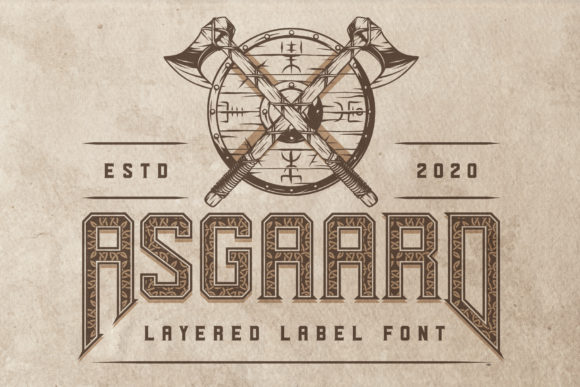
Asgaard Font: Unleash the Power of Norse Mythology in Your Designs
In the realm of typography, few fonts have managed to capture the essence of mythology and legend as effectively as the Asgaard Font. Inspired by the majestic world of Norse mythology, Asgaard is an eye-catching display font that brings a touch of divine power to any design project. Whether you’re a graphic designer, a digital artist, or simply someone looking to add a bit of magic to your visual creations, Asgaard is the perfect choice.
What is Asgaard Font?
Asgaard Font is a meticulously crafted typeface that draws its inspiration from the realm of Asgard, the mythical kingdom of the gods in Norse mythology. Known for its strong, bold, and majestic aesthetic, Asgaard Font embodies the fearless spirit of the Viking gods and goddesses. With its unique blend of classic and modern elements, this font is designed to make your ideas stand out and create spectacular designs that capture the imagination.
Key Features and Benefits of Asgaard Font
- Unique and Distinctive Design: Asgaard Font boasts a one-of-a-kind design that sets it apart from more traditional fonts. Its intricate details and bold lines make it perfect for creating eye-catching headlines and titles.
- Inspired by Norse Mythology: The font’s inspiration from Norse mythology gives it a rich and storied background, allowing designers to tap into the legendary world of gods and goddesses.
- High Versatility: Asgaard Font can be used across a wide range of design projects, from posters and flyers to digital banners and website headers.
- Ease of Use: Despite its complex design, Asgaard Font is surprisingly easy to use, making it accessible to designers of all skill levels.
- Scalability: The font remains clear and legible at various sizes, ensuring that your designs look great whether they’re viewed on a large billboard or a small mobile screen.
Design Tips and Inspiration
To get the most out of Asgaard Font, consider the following design tips:
- Pair with Contrasting Fonts: Combine Asgaard Font with simpler fonts to create a striking contrast that draws attention to your key messages.
- Experiment with Colors: Take advantage of the font’s bold design by experimenting with vibrant colors that reflect the rich hues of Norse mythology.
- Play with Textures: Add depth to your designs by incorporating textures that evoke the rugged, natural landscapes of Scandinavia.
For inspiration, look to the epic tales of Norse mythology, where gods and mortals alike embark on daring quests and face formidable challenges. Channel this sense of adventure and heroism into your designs, and you’ll be amazed at the spectacular creations you can come up with using Asgaard Font.
In conclusion, Asgaard Font is a powerful tool for designers looking to infuse their work with the epic feel of Norse mythology. Its unique design, versatility, and ease of use make it an excellent choice for a wide range of projects. Whether you’re aiming to create stunning visual effects, convey a sense of strength and courage, or simply add a touch of legend to your designs, Asgaard Font is the perfect companion on your creative journey.